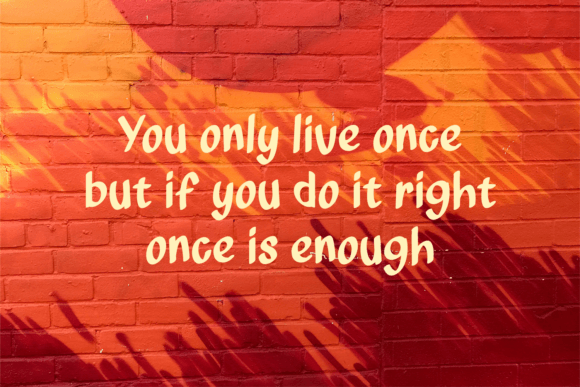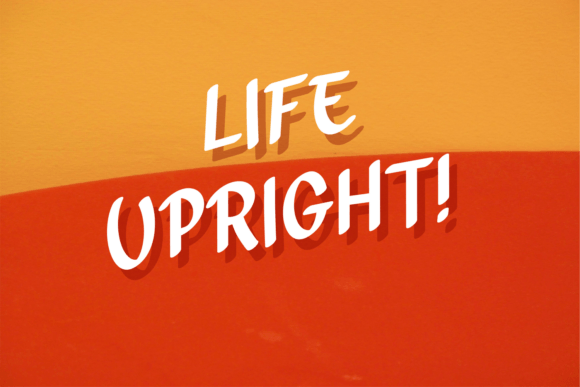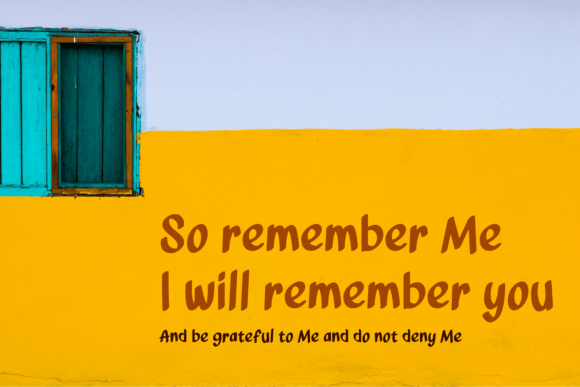
Introduction to Jembaro Font
Introducing Jembaro – Modern Sans Serif Font Jembaro is a modern sans serif font.
Perfect for branding projects, logos, wedding designs, social media posts, advertisements, product packaging, product designs, labels, photography, watermarks, invitations, stationery, and any projects that need handwriting taste .
Key Features of Jembaro Font
Why Choose Jembaro Font?
Jembaro Font offers exceptional quality and versatility, making it a valuable addition to your design toolkit. Whether you’re creating for personal projects or commercial use, Jembaro Font delivers professional results.